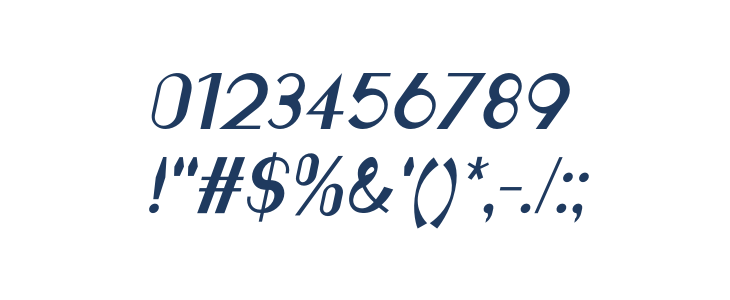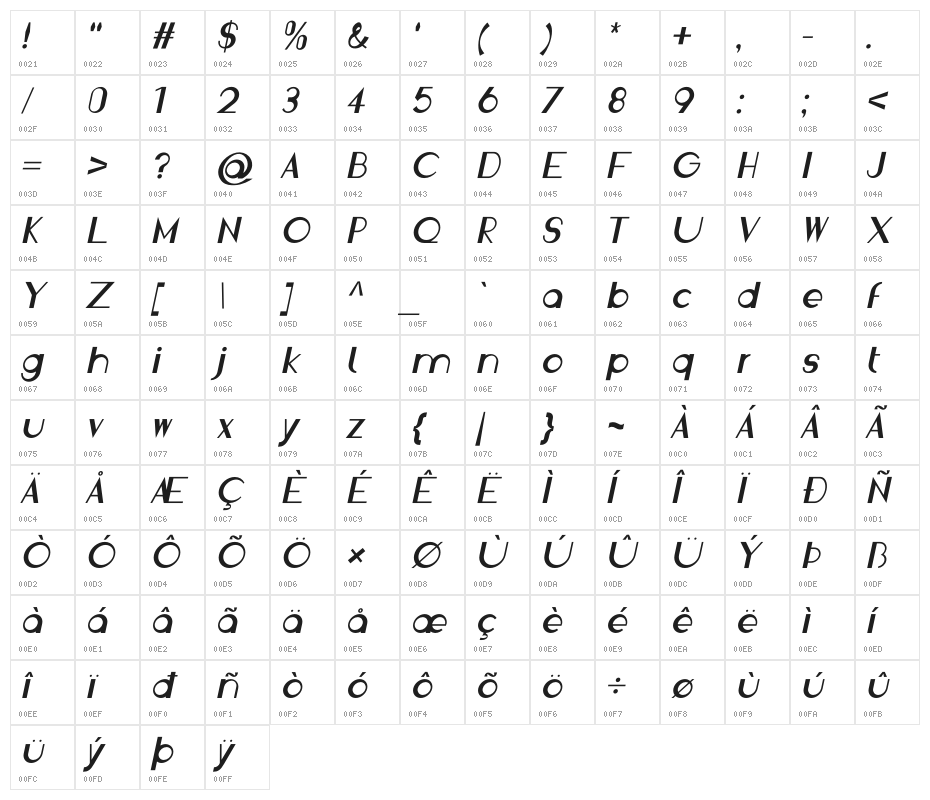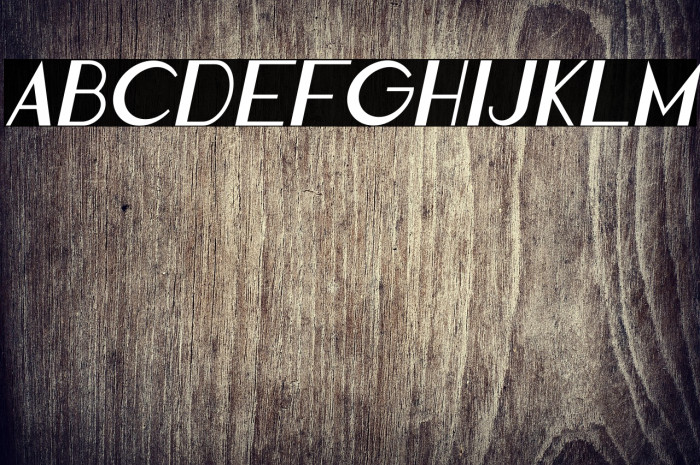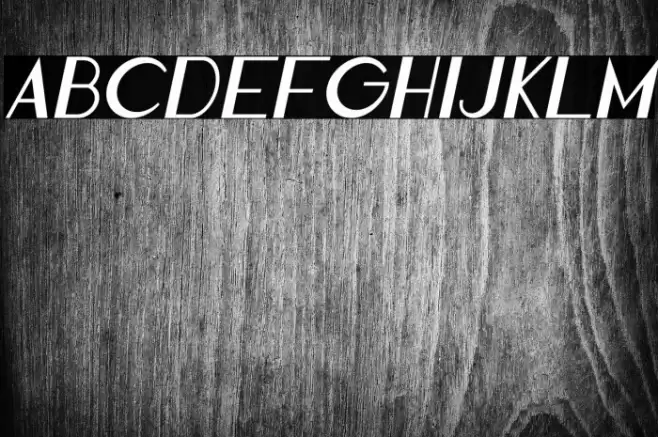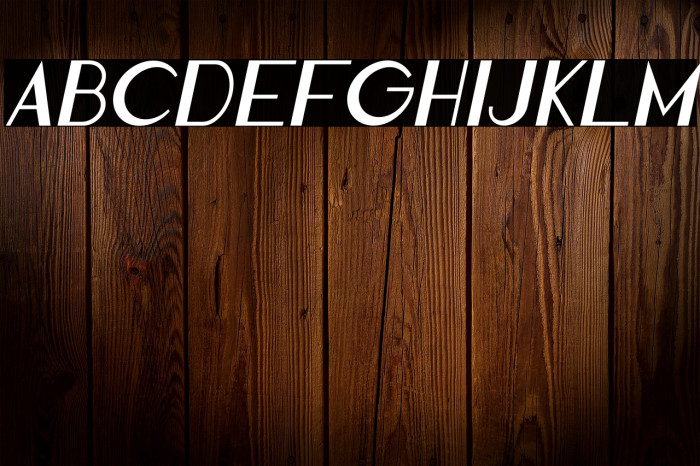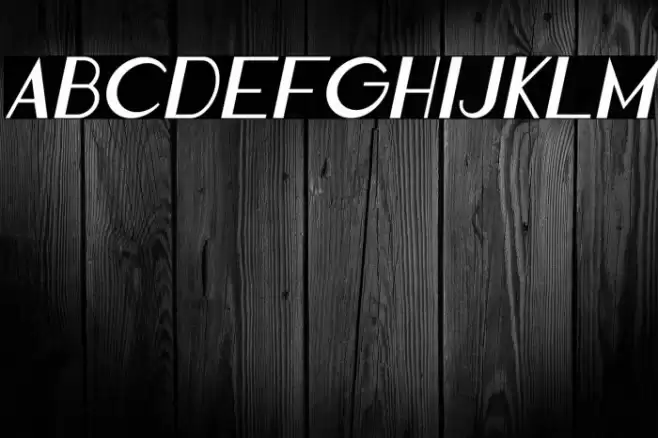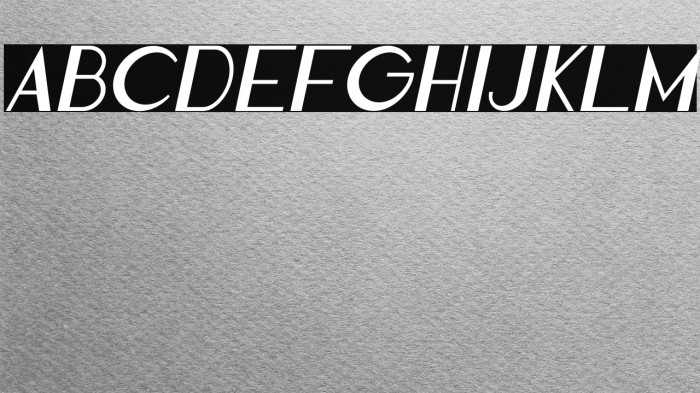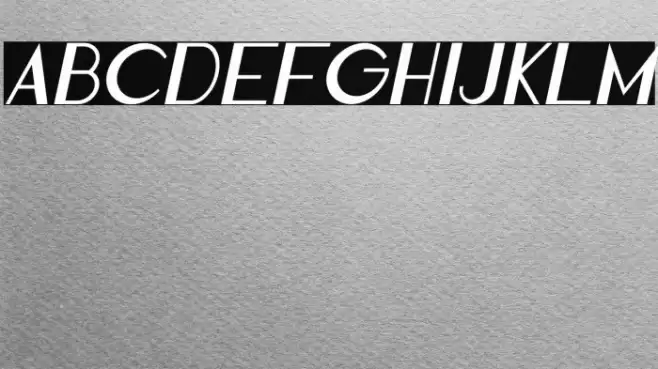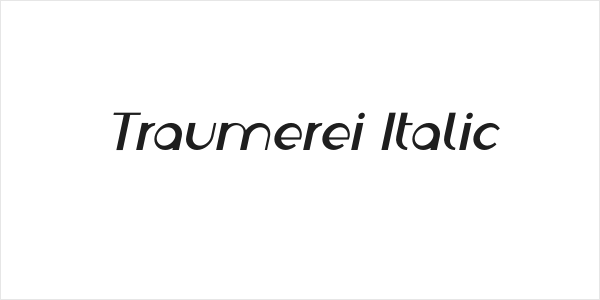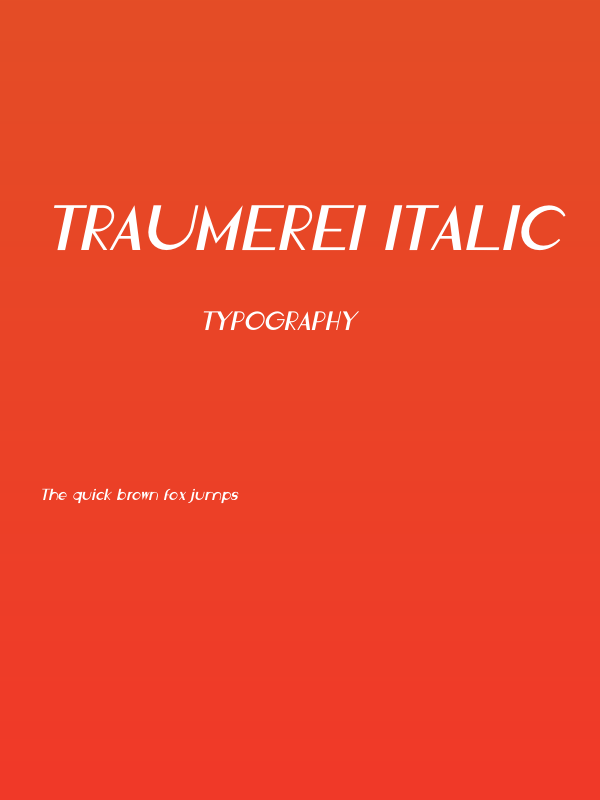
Traumerei Italic Font
Traumerei Italic Description
This font features an elegant and modern italic style with smooth, flowing curves and a slight slant that adds a sense of motion and sophistication. The characters are well-balanced, with a consistent stroke width that provides a clean and polished appearance. The uppercase letters are tall and slightly narrow, while the lowercase letters maintain a harmonious flow, making the font versatile for various design applications. The numerals are distinct and easy to read, complementing the overall aesthetic. Special characters are thoughtfully designed, maintaining the font's cohesive look.
| Proposed Projects | Ideal for branding, editorial design, fashion magazines, and elegant invitations. |